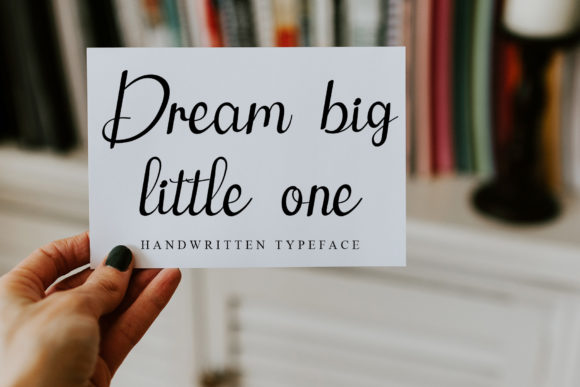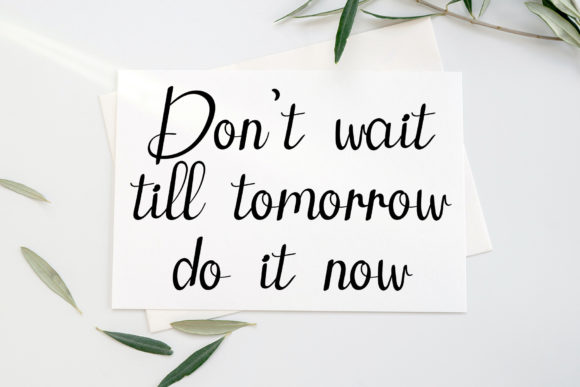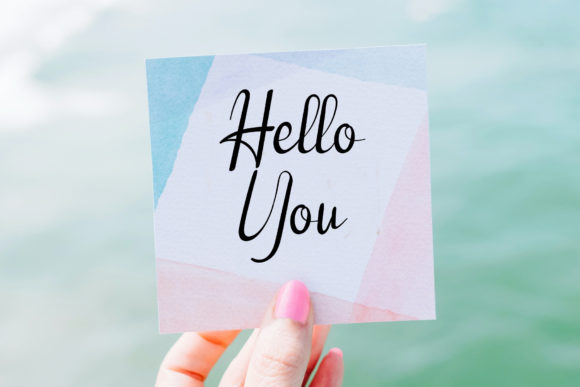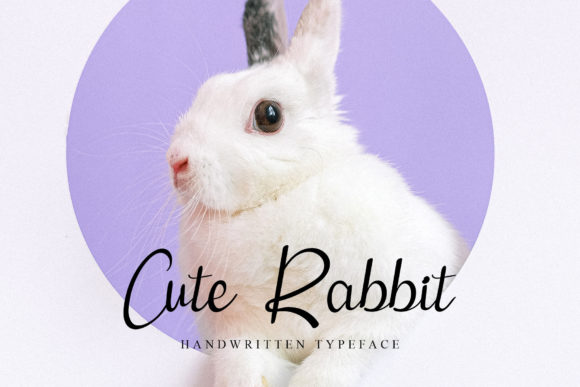
About Mermaid on Land Font
Mermaid on Land is a delicate and cursive handwritten font. This gentle font will look gorgeous on a variety of design ideas. It will add a joyful and romantic touch to each of your projects!